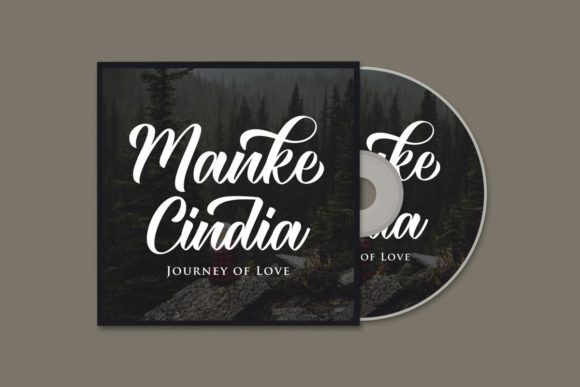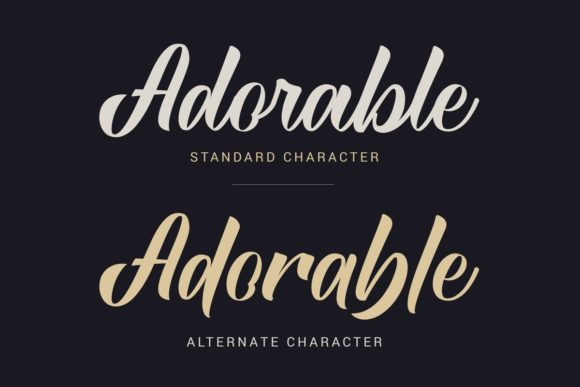
Royante Font
Royante is a modern script typeface. It features many alternates for each letter. It will elevate a wide range of design projects to the highest level, be it branding, headings, wedding designs, invitations, signatures, logos, labels, and much more!